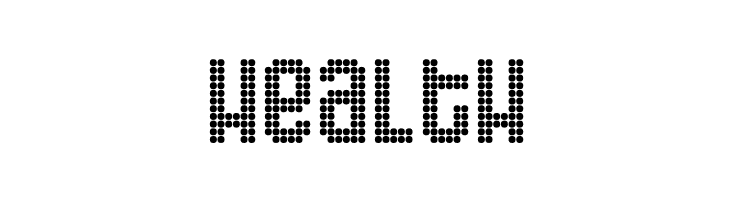
A bold slab serif font with strong, block-like serifs and a robust appearance.
( Carpenter Type - web.archive.org/web/19981202193132/www.carpentertype.com/ )
A bold, brush-style font with a hand-drawn, rustic appearance.
( Fonts by Flava Fonts - Leigh Taylor )
A modern, playful font with quirky letterforms and subtle stroke variations.
( BitmapMania - bitmapmania.m78.com/ )
A bold, pixelated font with a retro, geometric design.
( BitmapMania - bitmapmania.m78.com/ )
A pixelated, blocky font with a retro digital aesthetic.
( BitmapMania - bitmapmania.m78.com/ )
A bold, geometric font with a blocky, digital appearance.
( BitmapMania - bitmapmania.m78.com/ )
A bold, pixelated font with a retro, digital style.
( BitmapMania - bitmapmania.m78.com/ )
A geometric, condensed font with a retro digital aesthetic.
( BitmapMania - bitmapmania.m78.com/ )
A bold, pixelated font with a retro, digital aesthetic.
( BitmapMania - bitmapmania.m78.com/ )
A bold, geometric font with a modern, pixelated style.
( BitmapMania - bitmapmania.m78.com/ )
A pixelated, retro-style font with a geometric and digital appearance.
( BitmapMania - bitmapmania.m78.com/ )
A bold, pixelated font with a geometric, retro digital style.